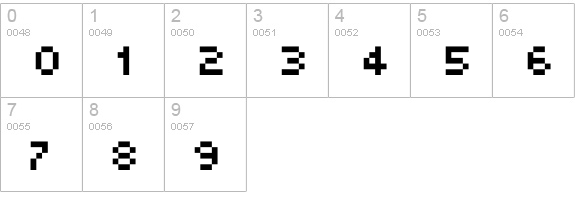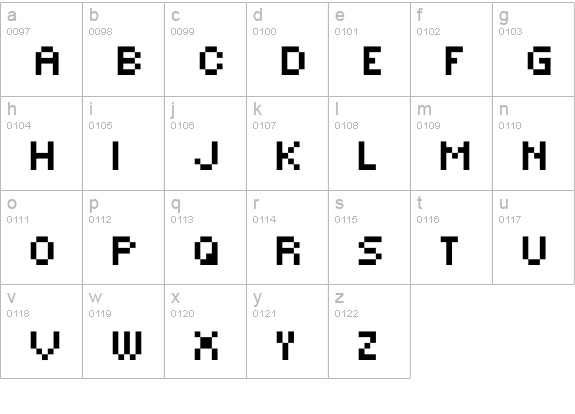
MINI 7 Condensed Font Details
MINI 7 Condensed is a distinctive, condensed-width variant in the MINI typeface family \xE2\x80\x94 well suited to design and typography projects.
MINI 7 Condensed font is a sleek and modern typeface that exudes sophistication and style. Its condensed design makes it perfect for creating eye-catching headlines, logos, and branding materials. With its clean lines and balanced proportions, MINI 7 Condensed font adds a touch of elegance to any project. Best of all, MINI 7 Condensed font is available for free download at FontsMarket.com. This means you can elevate your designs without breaking the bank. Whether you're a professional designer or a hobbyist looking to add a touch of flair to your creations, MINI 7 Condensed font is a versatile and stylish choice that won't disappoint. Download it today and start incorporating this stunning typeface into your projects.